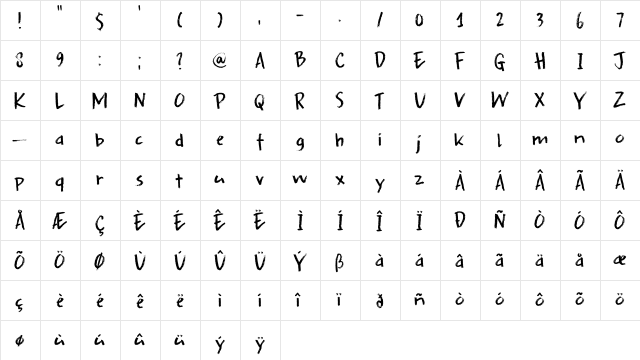
DK Splinterhand Regular
Design Context for DK Splinterhand Typeface
DK Splinterhand flows with the natural rhythm of handwritten lettering, making it ideal for designs that call for warmth and personal expression.
Font Pairing: Combine DK Splinterhand with a simple geometric sans for maximum contrast — the tension between flowing curves and clean structure is a classic typographic pairing.
Pro Tip: Use DK Splinterhand for short runs of text — names, titles, or taglines. Extended body copy in script faces tires the eye quickly.